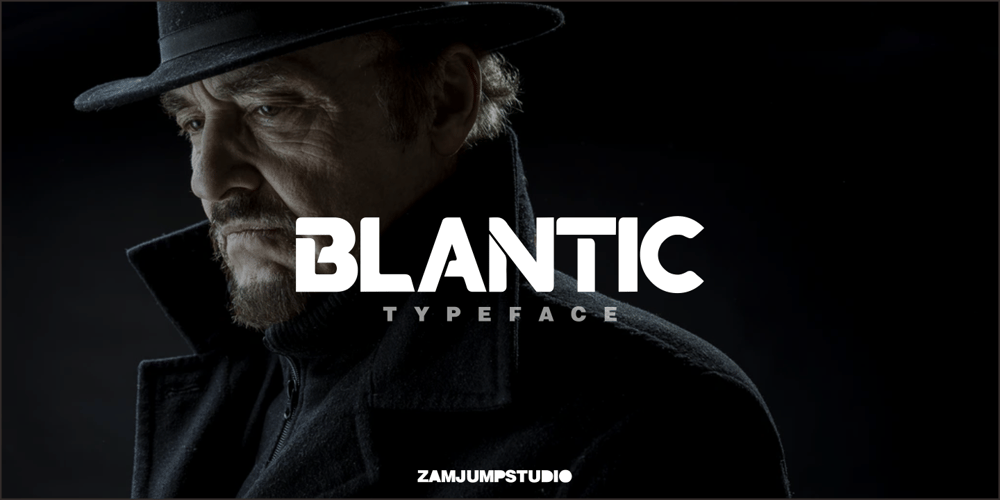
Blantic
Blantic font
Blantic Font Family was designed by Zamjump and published by Zamjump. Blantic contains 1 styles and family package options. BLANTIC is a modern and dynamic sans font that contains all caps and alternative fonts. The combination of futuristic and geometric elements creates a modern design. very suitable for use in various logo designs, posters, book covers, films, sports and several other formal designs, very easy to read, try some alternative letters to get the impression of dynamism and harmony between letters.WHAT IS INCLUDEDThis font contains standard characters, uppercase letters, numbers, punctuation marks. Includes:UppercaseNumbersPunctuationSymbolsmultilingual supportAlternate